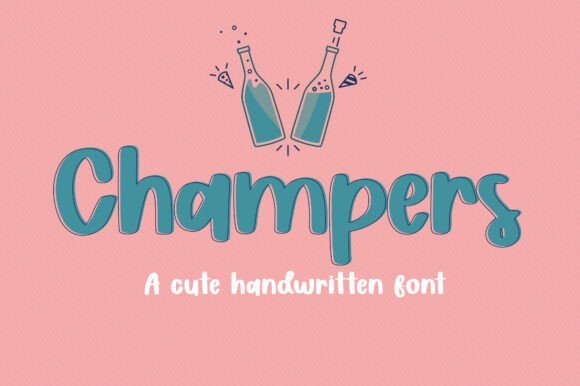
The Perfect Blend of Elegance and Creativity: Introducing Champers Font
Have you ever found yourself doodling in the margins of a notebook, creating intricate patterns and cursive scripts that bring a touch of personality to your notes? That’s the magic of creativity, and for designers and writers, it’s a moment that sparks inspiration. Now, imagine having that same spark in your digital planning, note-taking, and study notes experience. That’s where Champers Font comes in – a stunning typeface that combines the best of handwritten script, calligraphy, and retro charm.
With its cursive, logo-like elegance and bistro uniqueness, Champers Font is a game-changer for designers and writers looking to add a touch of beauty and sophistication to their work. Whether you’re creating digital collages, notes, or creative projects, this font is sure to radiate an irresistible appeal and elevate your designs to the next level.
- Unique Characteristics: Champers Font features a distinctive, elegant design with a mix of modern and vintage elements, making it perfect for luxury and high-end branding.
Designer Review: Champers Font
Overall, I’d say Champers Font has some great qualities, but it falls short in a few areas. ✨ Here are some of its strengths:
- Unique flair: Champers Font has a distinct, elegant style that can add a touch of sophistication to designs.
- Good legibility: The font is clear and easy to read, even at smaller font sizes.
- Wide language support: Champers Font supports a wide range of languages, making it a versatile choice for designers working on multilingual projects.
- Limited expressiveness: While Champers Font is elegant, it’s not particularly expressive or dynamic, which might limit its use in designs that require a lot of emphasis or energy.
- No bold weights: The font is available in regular and italic weights, but there are no bold or condensed versions, which can make it less suitable for headings or titles.
- Not ideal for digital displays: Champers Font is optimized for print, which means it might not be the best choice for digital displays or screens.
Overall, I’d say Champers Font is a solid choice for designers who need a elegant, easy-to-read font for print projects. However, it might not be the best fit for designers who require more expressiveness or versatility in their fonts.
Getting the Most Out of Champers Font
To get the most out of Champers Font, use it for:
1. Headlines and titles: Champers Font is perfect for making bold, eye-catching headlines.
2. Branding: Use Champers Font consistently across your brand to create a unique and recognizable identity.
3. Creative projects: Champers Font is great for adding a touch of elegance and sophistication to your designs.
Champers Font is commonly used for:
2. Luxury branding and packaging.
3. High-end marketing materials.